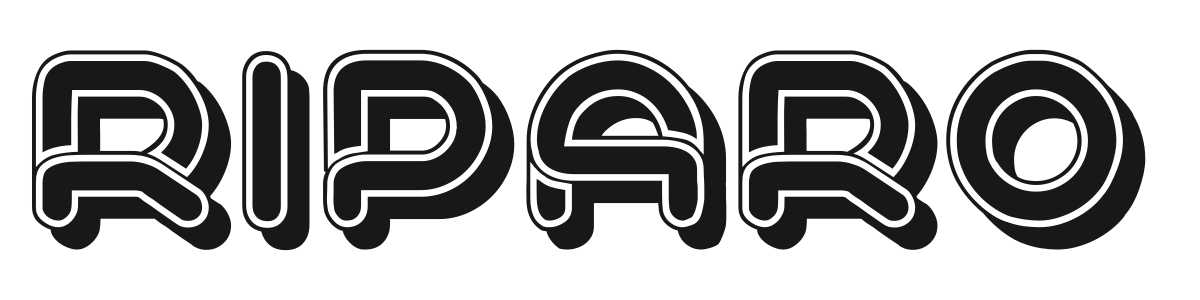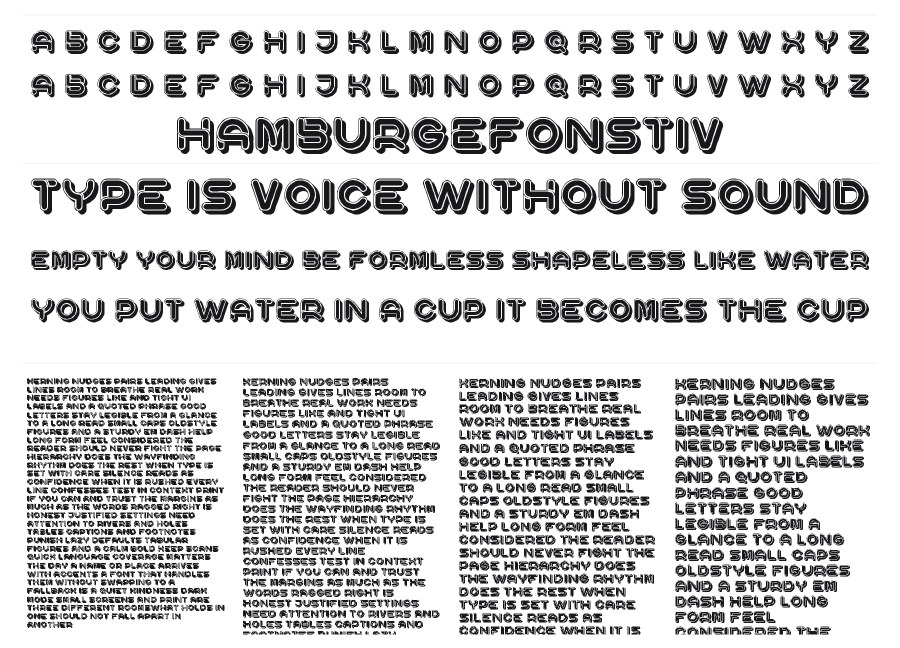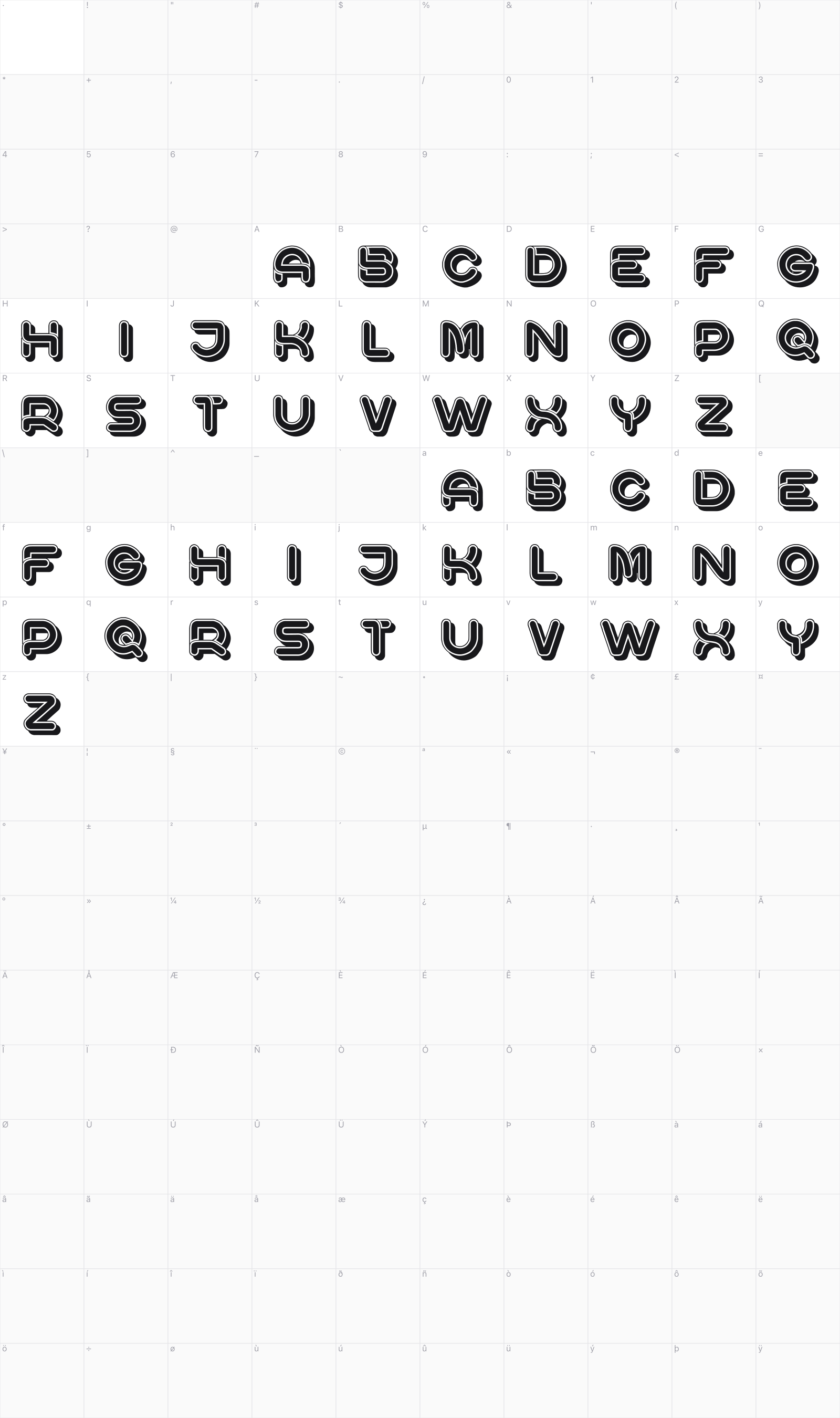
Riparo
Riparo is a heavy rounded display font with a bold inline shadow effect that stacks multiple interior lines to create a dimensional, retro depth. The wide characters and chunky uniform strokes channel unmistakable 1970s energy, somewhere between a diner sign and a stadium logo. It works at large sizes where the layered inline detail can breathe.